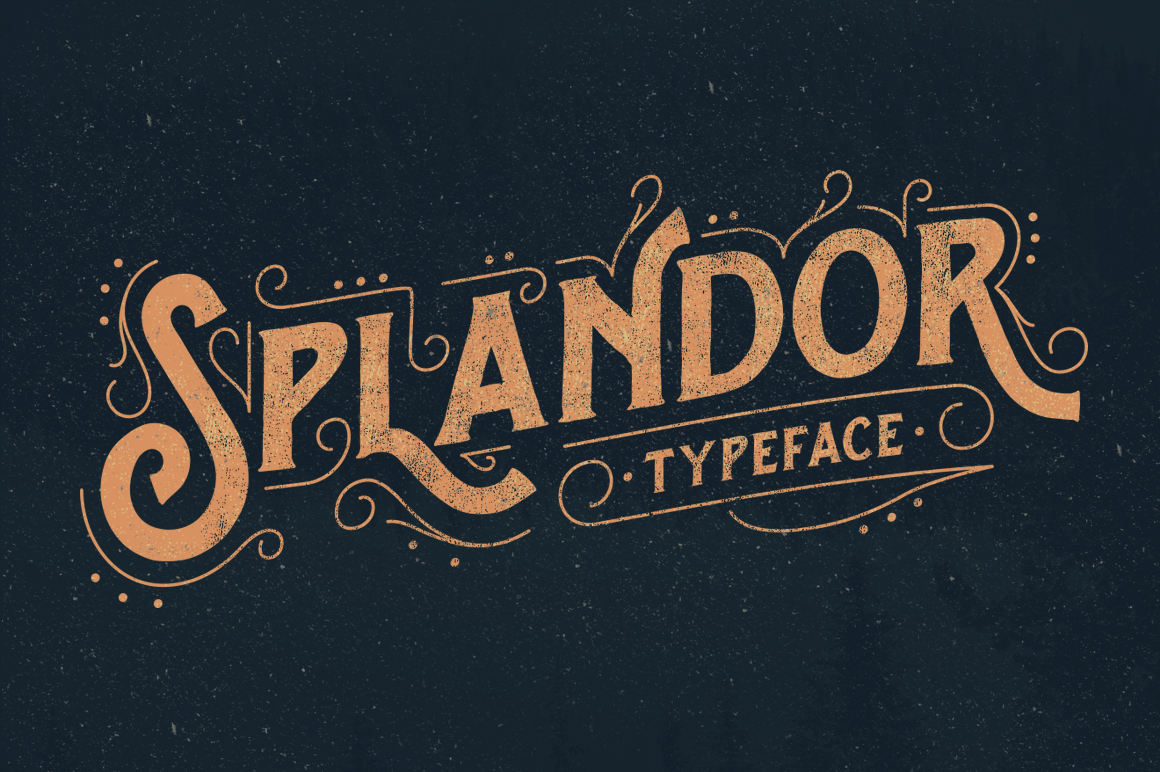
Splandor Typeface
Introducing the new Splandor Typeface, another display serif font with handdraw style.I thought to make this fonts when I create some lettering that I post on my instagram (http://goo.gl/M4OFeR). Handdraw style and a touch of ornament makes this font look old and stylist. Plus OpenType features with Stylistic Alternates in some characters that allows you to mix and match pairs of letters to fit your design. This font good for vintage design, t-shirt, logo, labels, posters and etc.